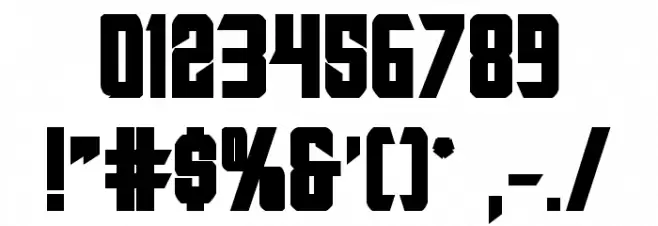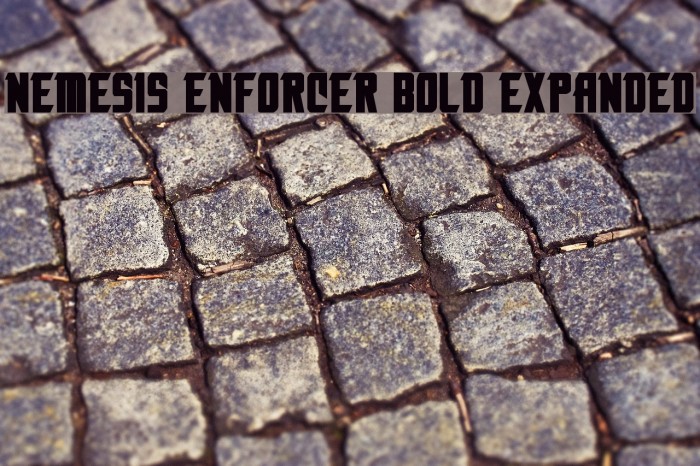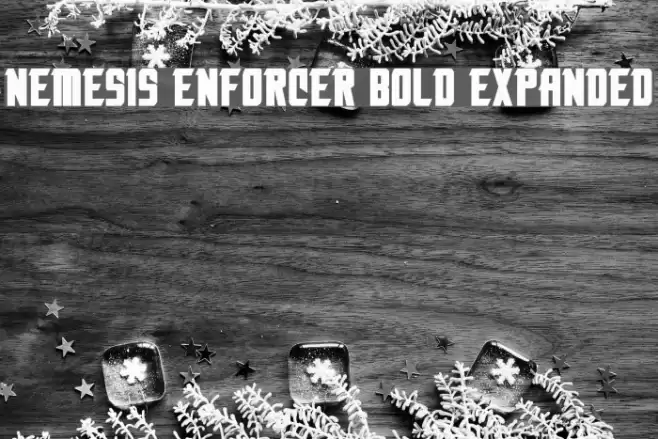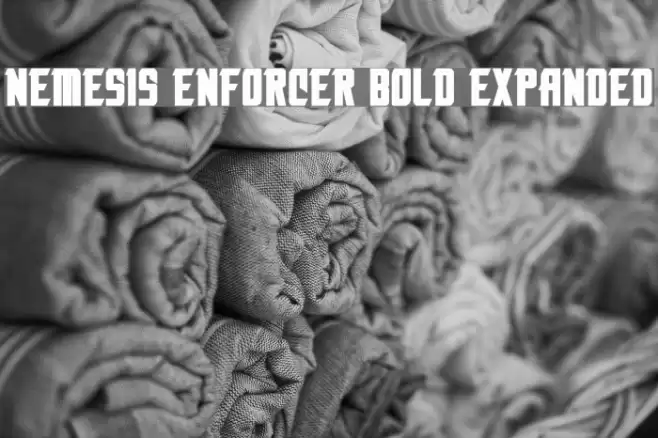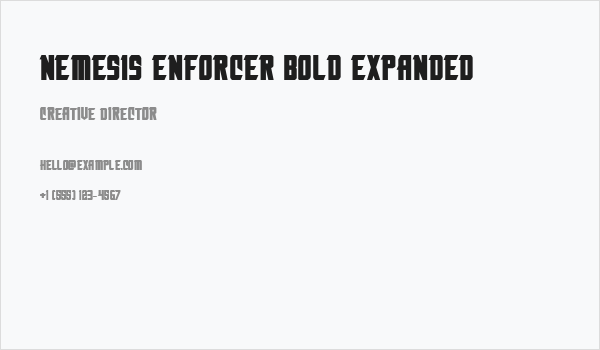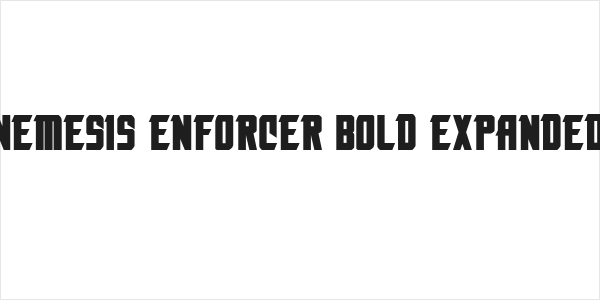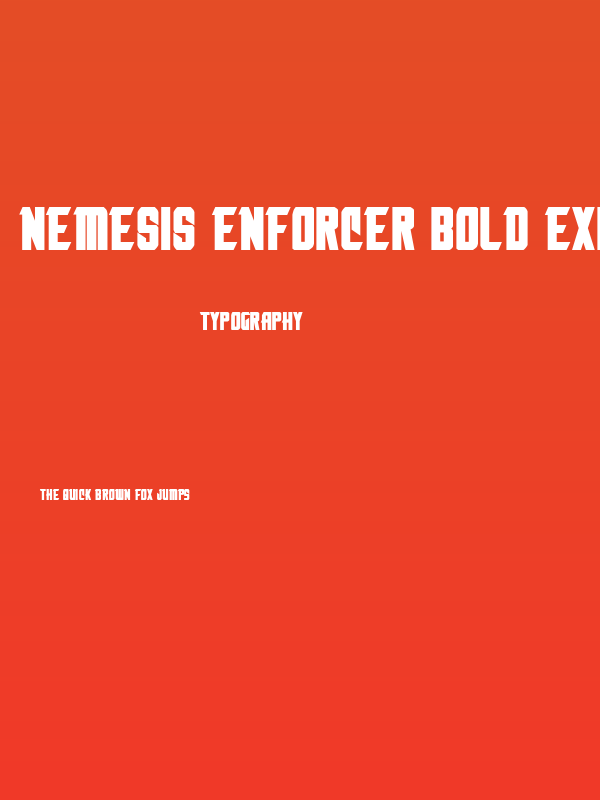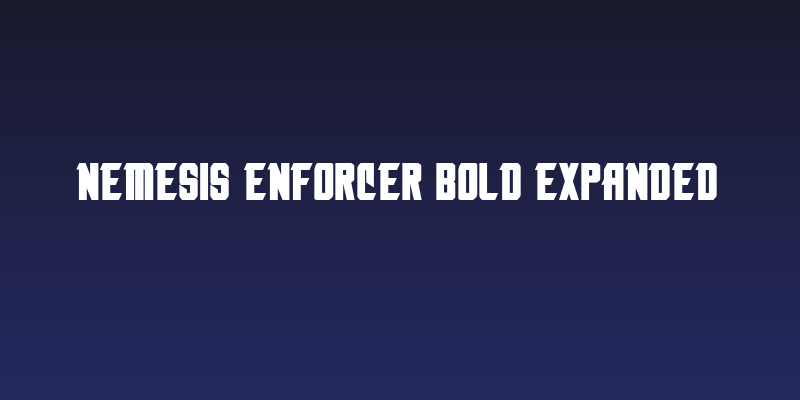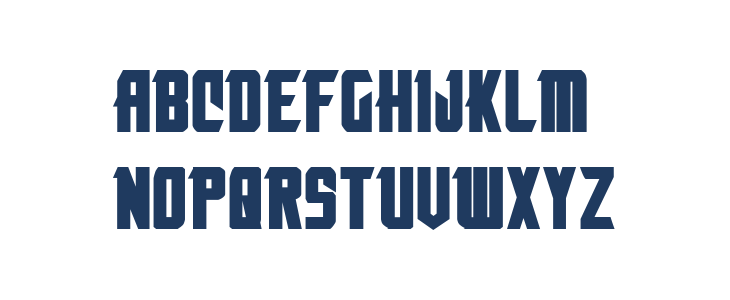
Nemesis Enforcer Bold Expanded Font
Nemesis Enforcer Bold Expanded Description
This font features a bold and expanded style with strong geometric shapes and sharp angles. The characters are designed with a futuristic and aggressive aesthetic, making them stand out with their thick strokes and unique cutouts. The uppercase letters are particularly striking, with a uniform height and width that gives them a commanding presence. The numbers and special characters maintain the same boldness and angular design, ensuring consistency across all glyphs. This font is ideal for projects that require a powerful and dynamic visual impact.
| Proposed Projects | Ideal for video game titles, movie posters, sports branding, and any project needing a strong, futuristic look. |